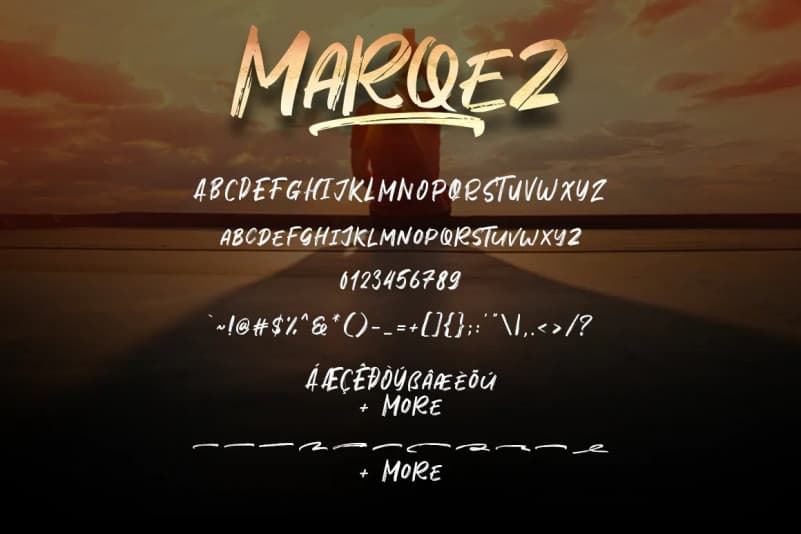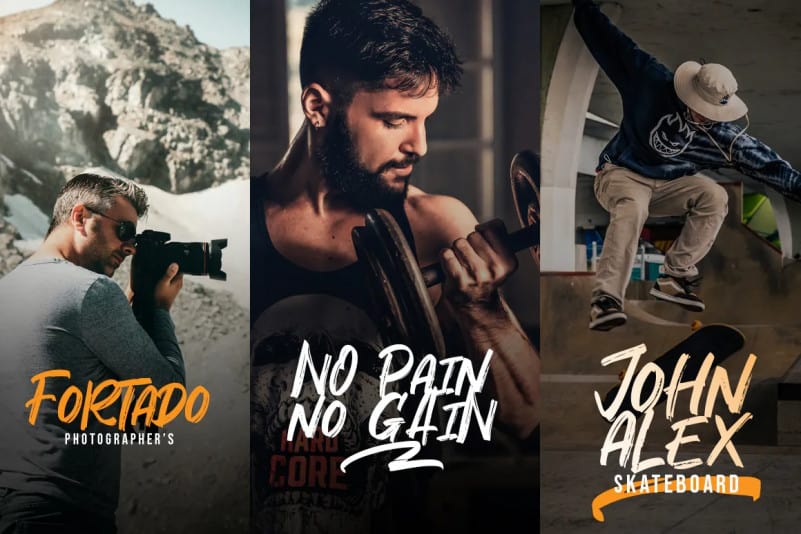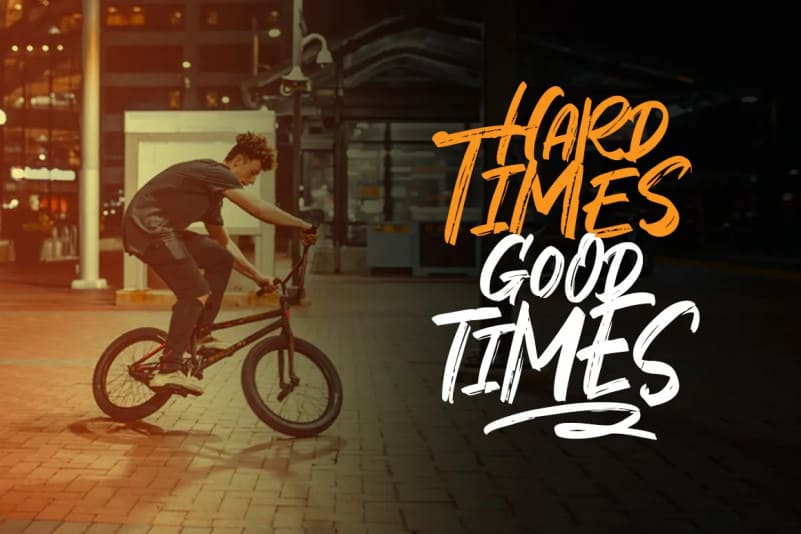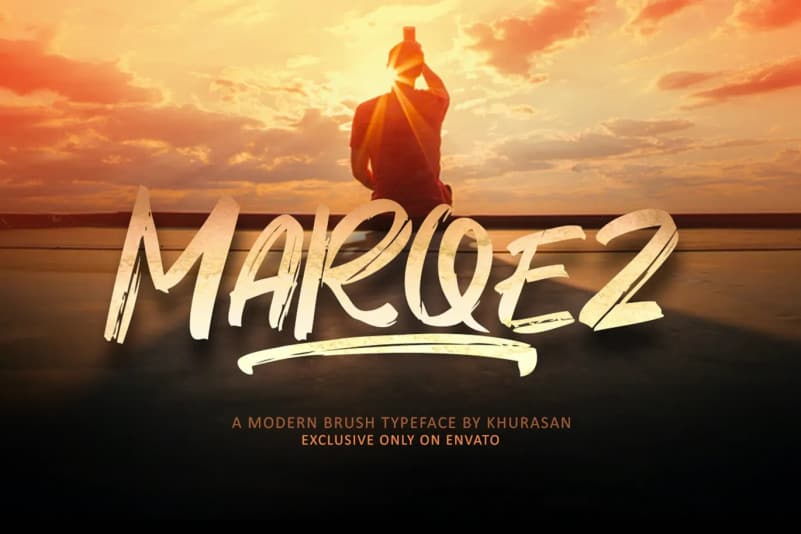
Marqez Brush Font
Marqez Brush Font is completely hand-drawn and contain ligatures to perfectly re-create natural handwriting. It’s designed and shared by Khurasan. This typeface is a fresh handwritten font brush, elegant and vintage feel character set. The Marqez font includes a full set capital and lowercase letters, as well as multi-lingual support, swashes, numerals, & punctuation. The Marqez font exclusive only in envato web.